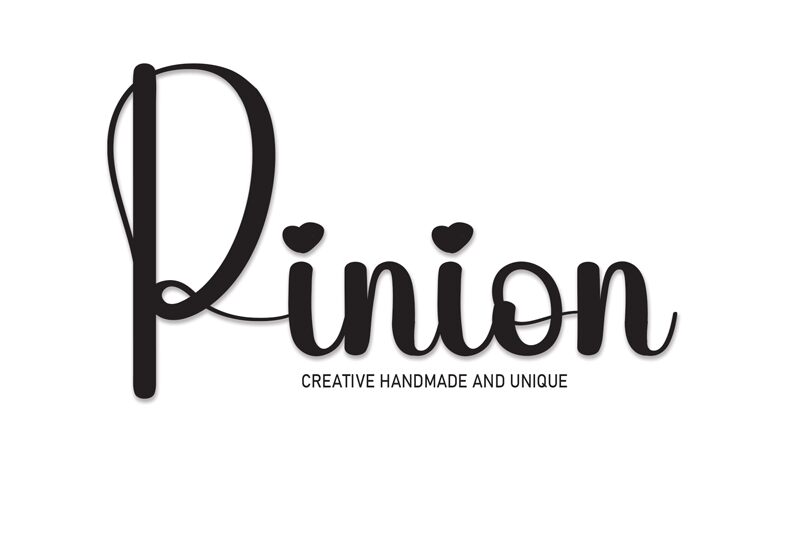
Pinion
Pinion is a captivating calligraphy font that exudes elegance and sophistication. Designed by Andi Moz, this font boasts a harmonious blend of graceful curves and sharp edges, creating a visually striking and dynamic aesthetic.
The playful interplay between the flowing script and the angular elements lends Pinion a distinct personality, making it a versatile choice for a wide range of design applications, from high-end branding and luxury packaging to impactful editorial layouts and personalized stationery.
Its unique character and attention to detail make Pinion a standout option for designers seeking to infuse their projects with a touch of refined, contemporary style.